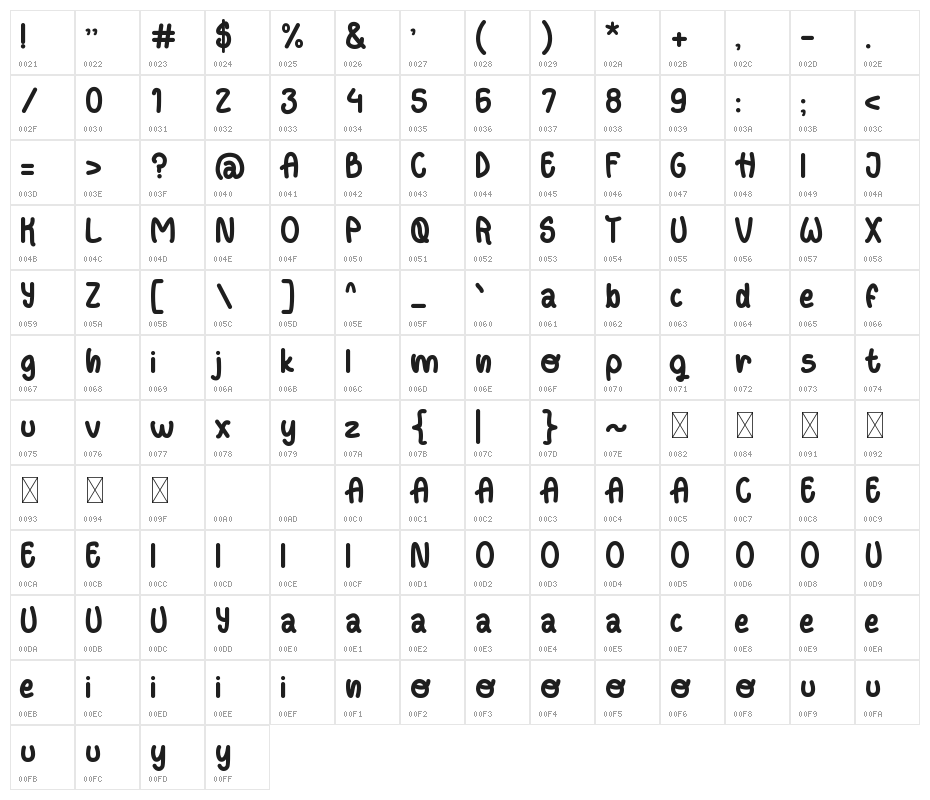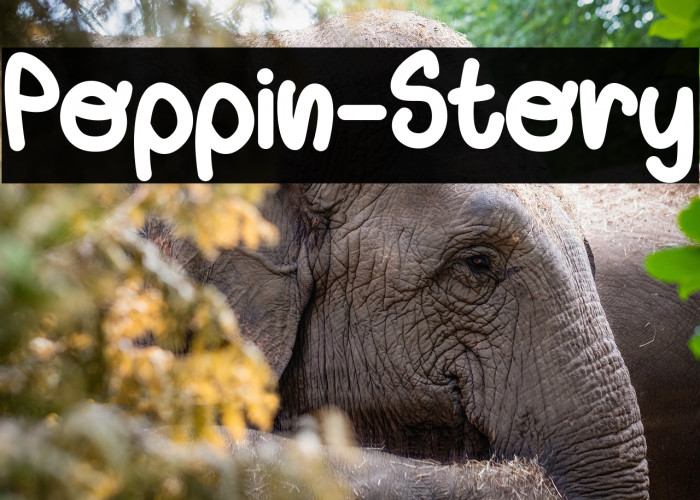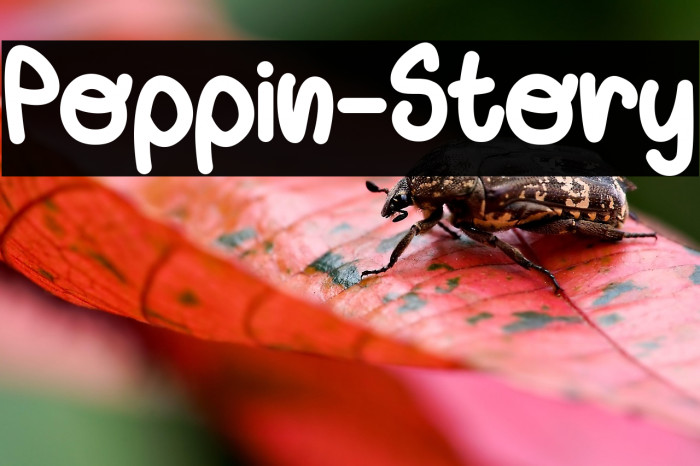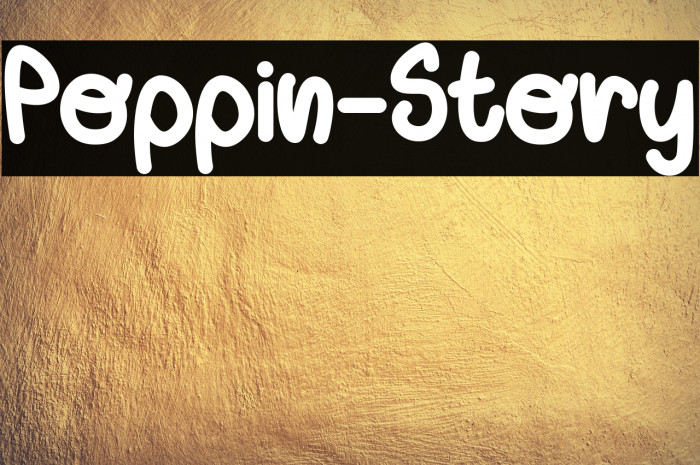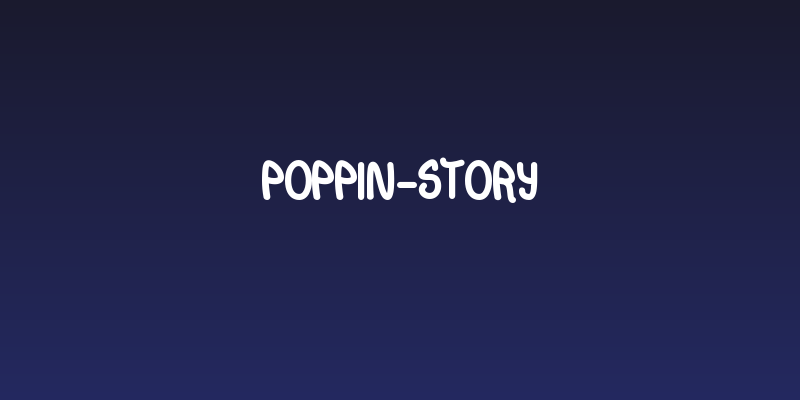
Poppin-Story Font
Poppin-Story Description
This playful and bold font features rounded, bubbly characters that exude a sense of fun and whimsy. The letters are thick and uniform, with a consistent stroke width that gives them a cartoonish, friendly appearance. The uppercase and lowercase letters maintain a cohesive style, with slightly exaggerated curves and a smooth flow. Numbers and special characters are equally bold and rounded, ensuring a harmonious look across all text elements. This font is perfect for projects that require a lively and approachable aesthetic, making it ideal for children's books, playful branding, or eye-catching headlines.
| Proposed Projects | Children's books, playful branding, eye-catching headlines, party invitations, and casual posters. |